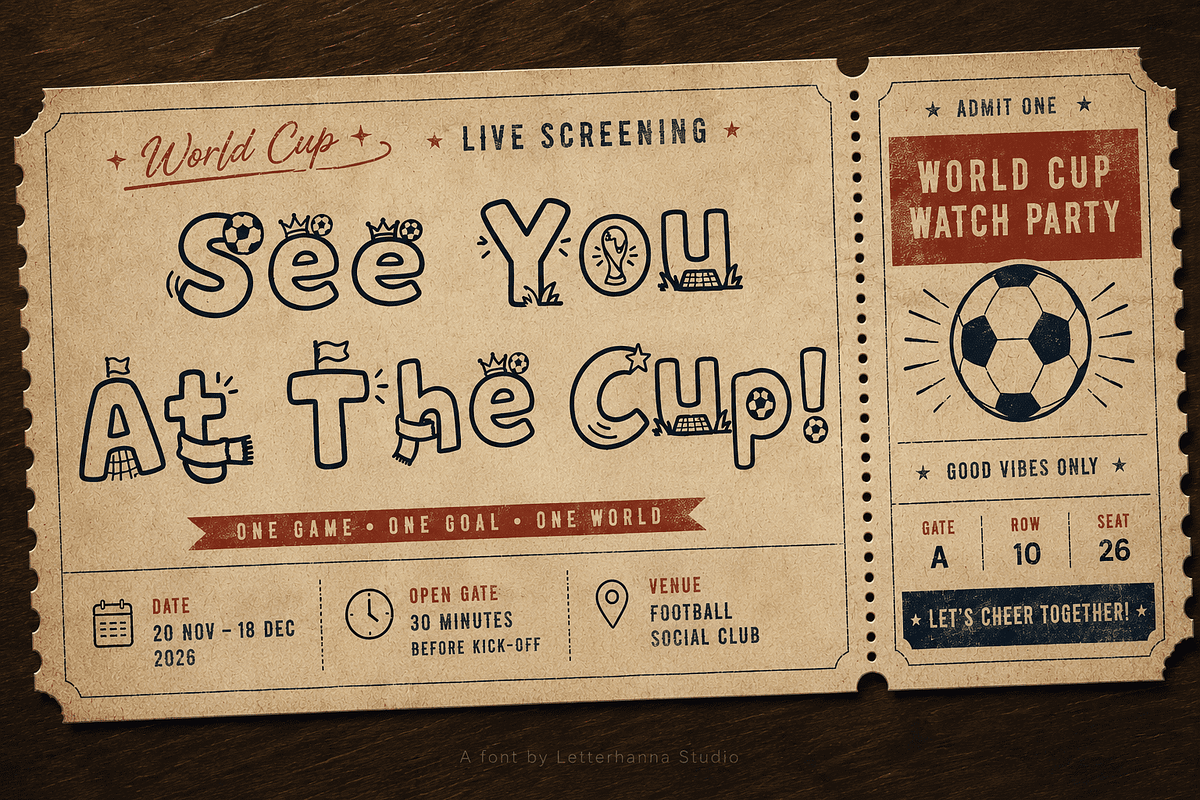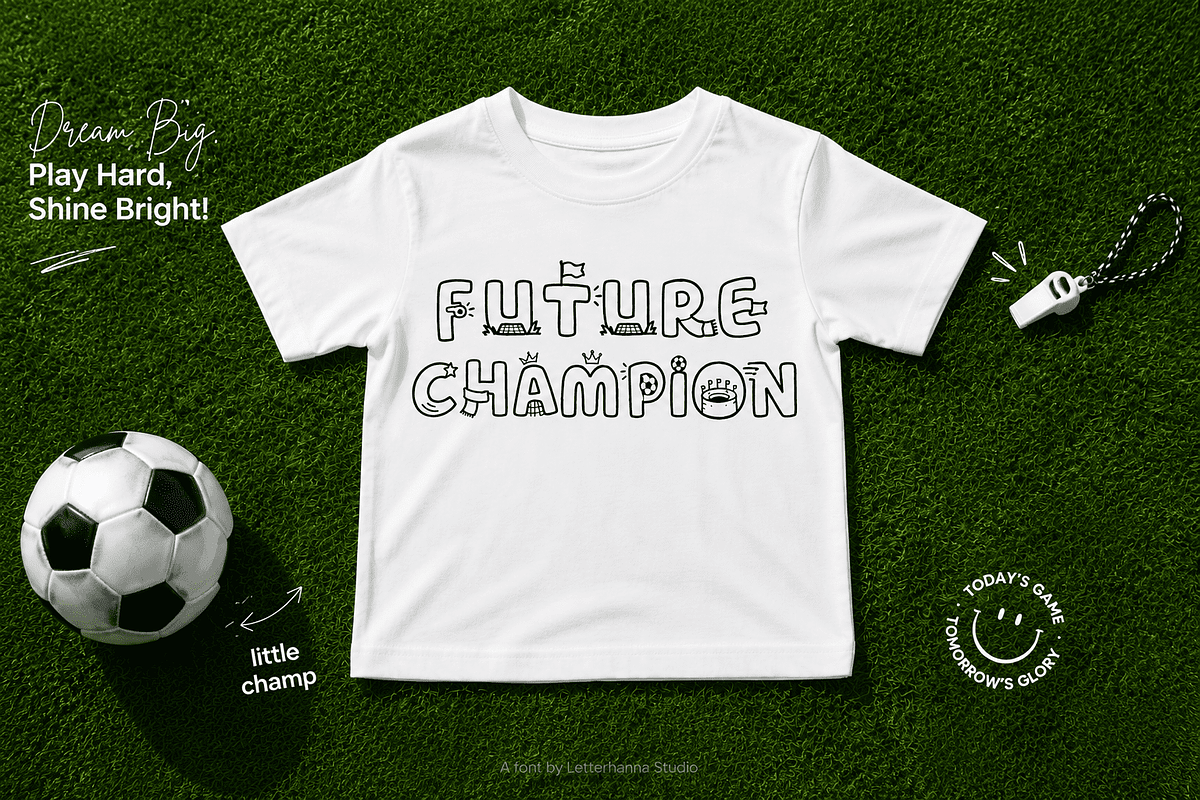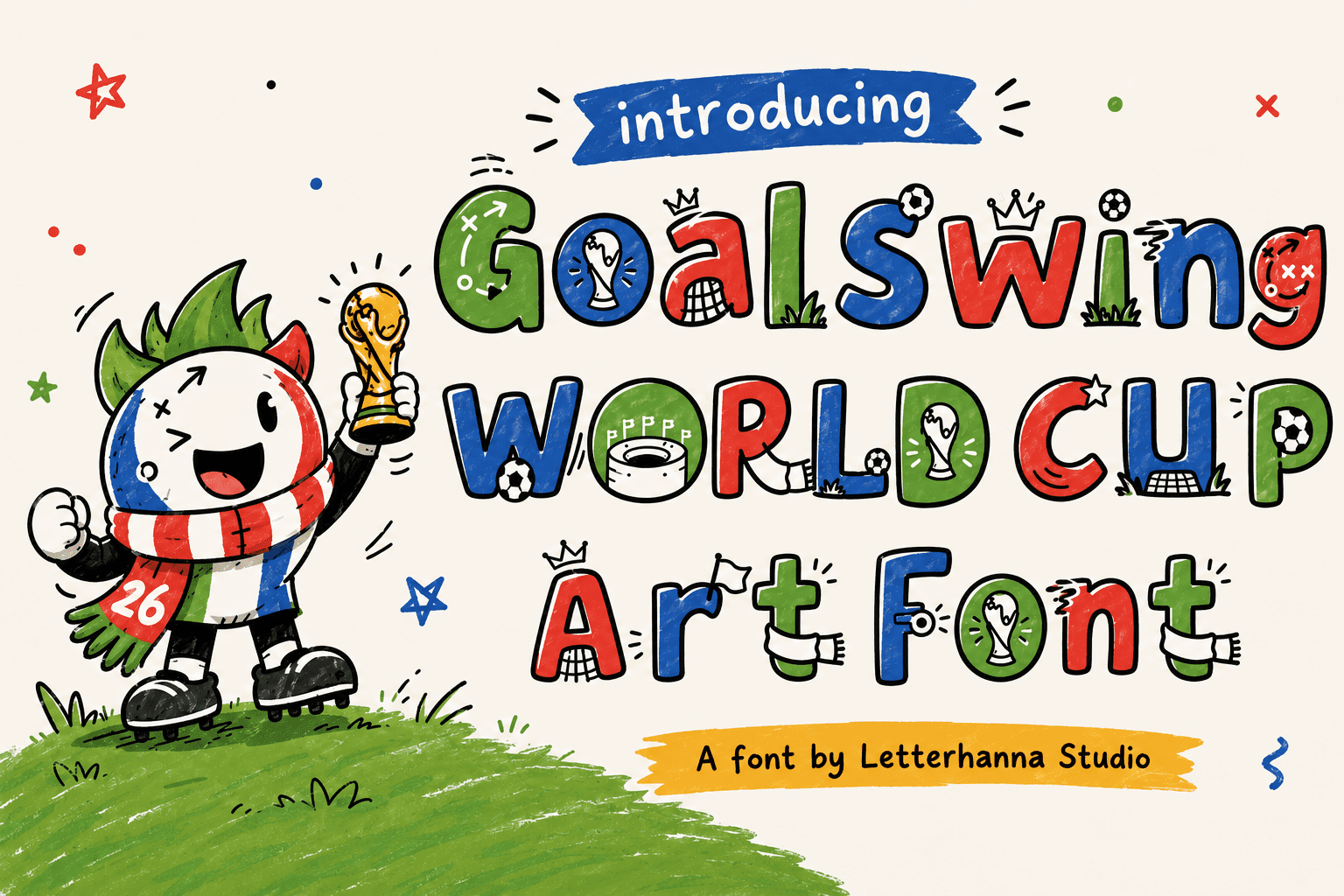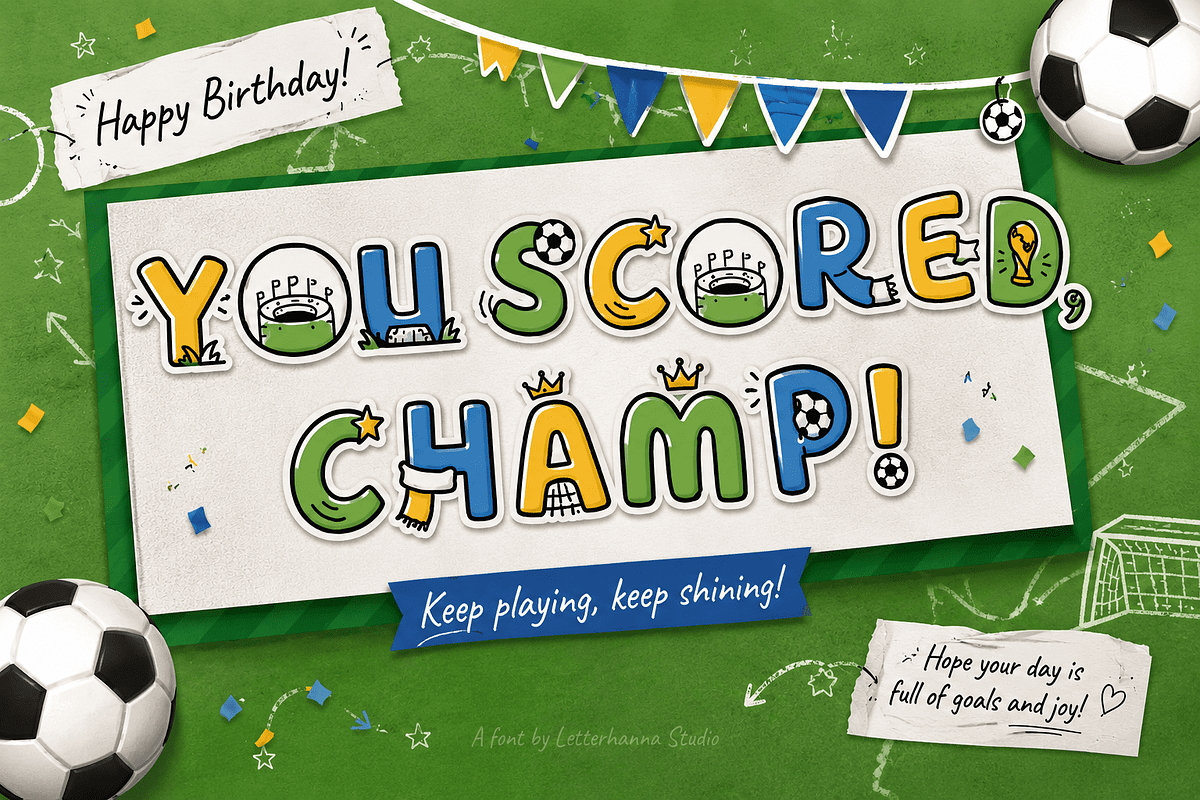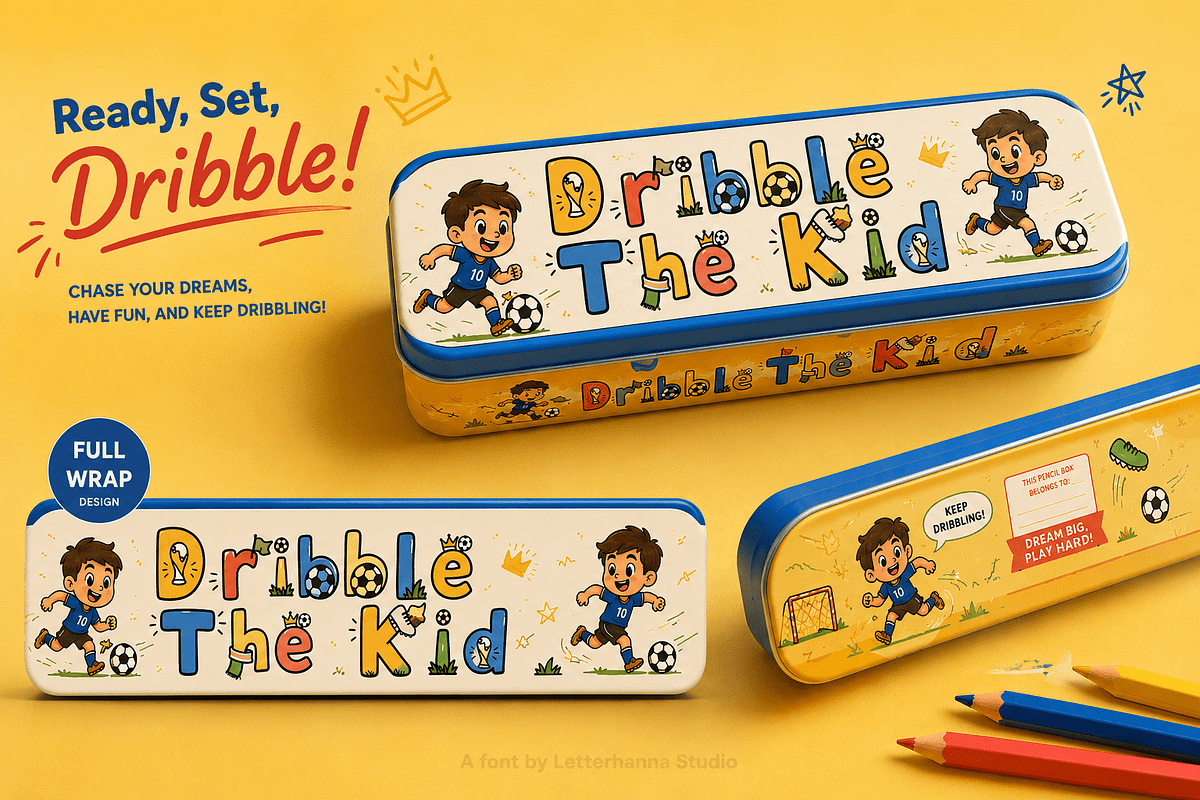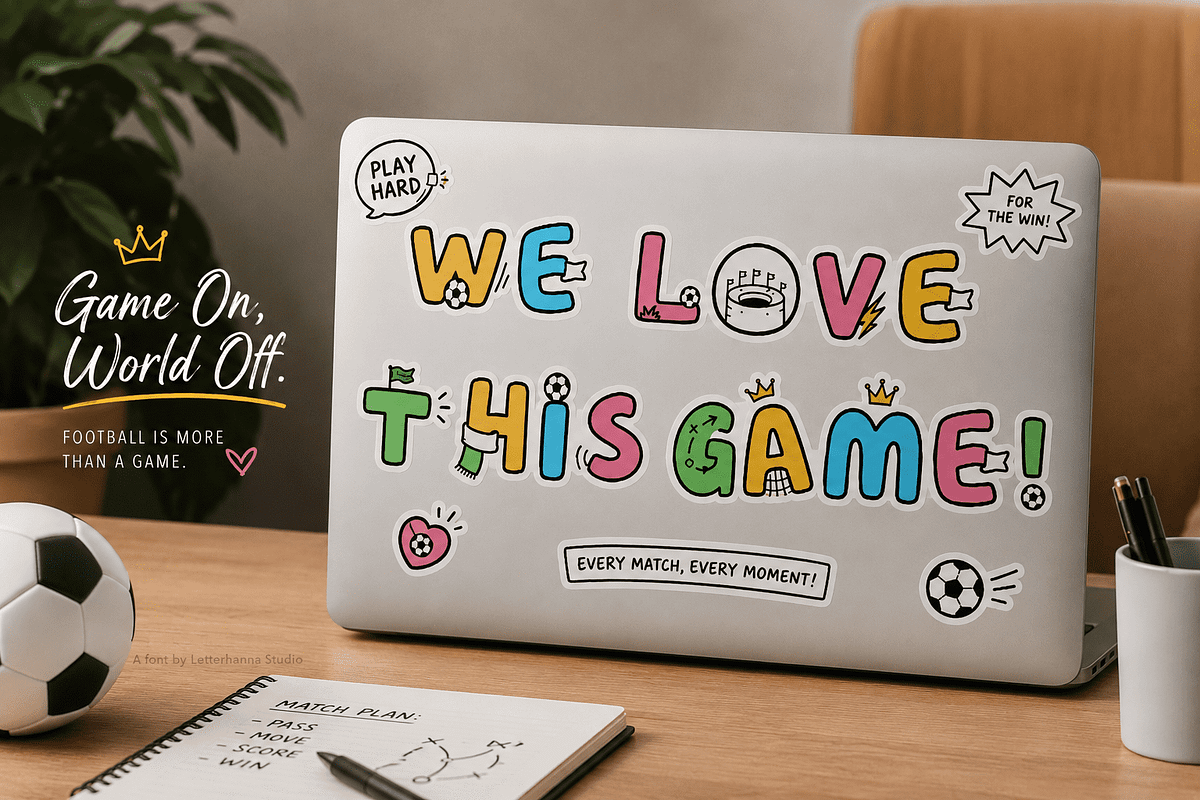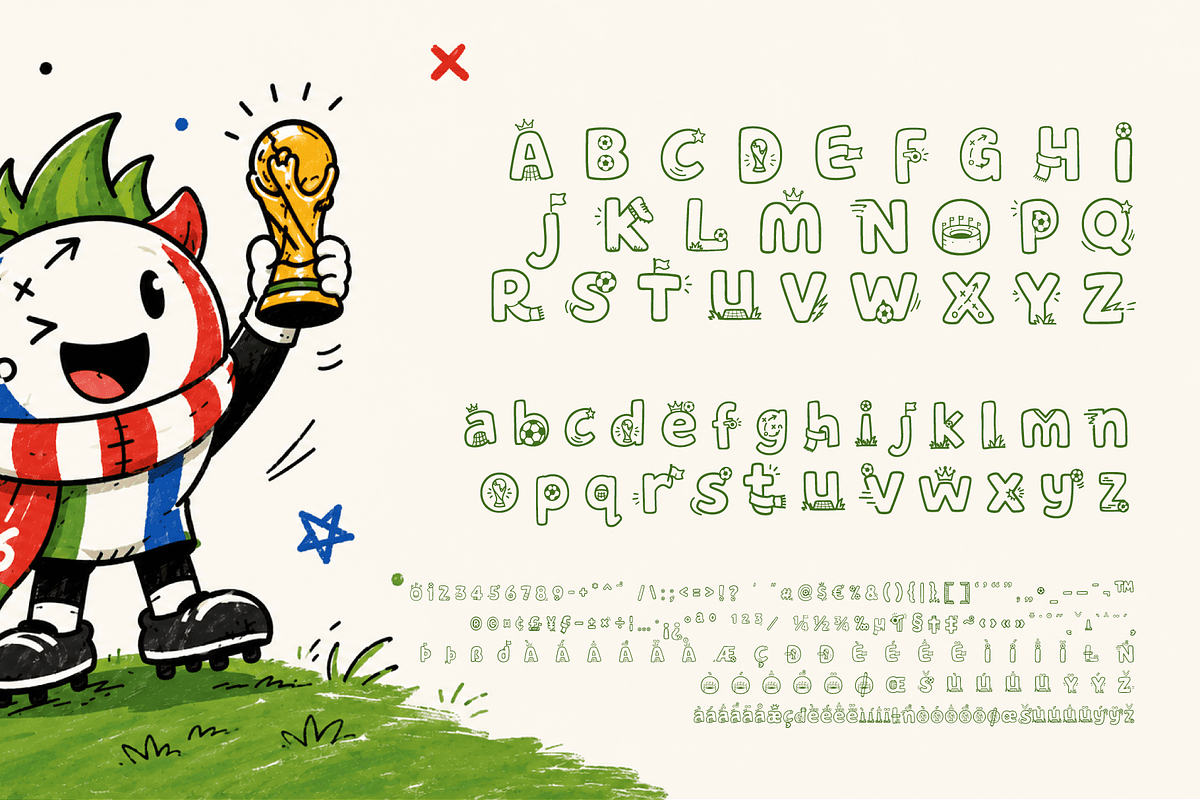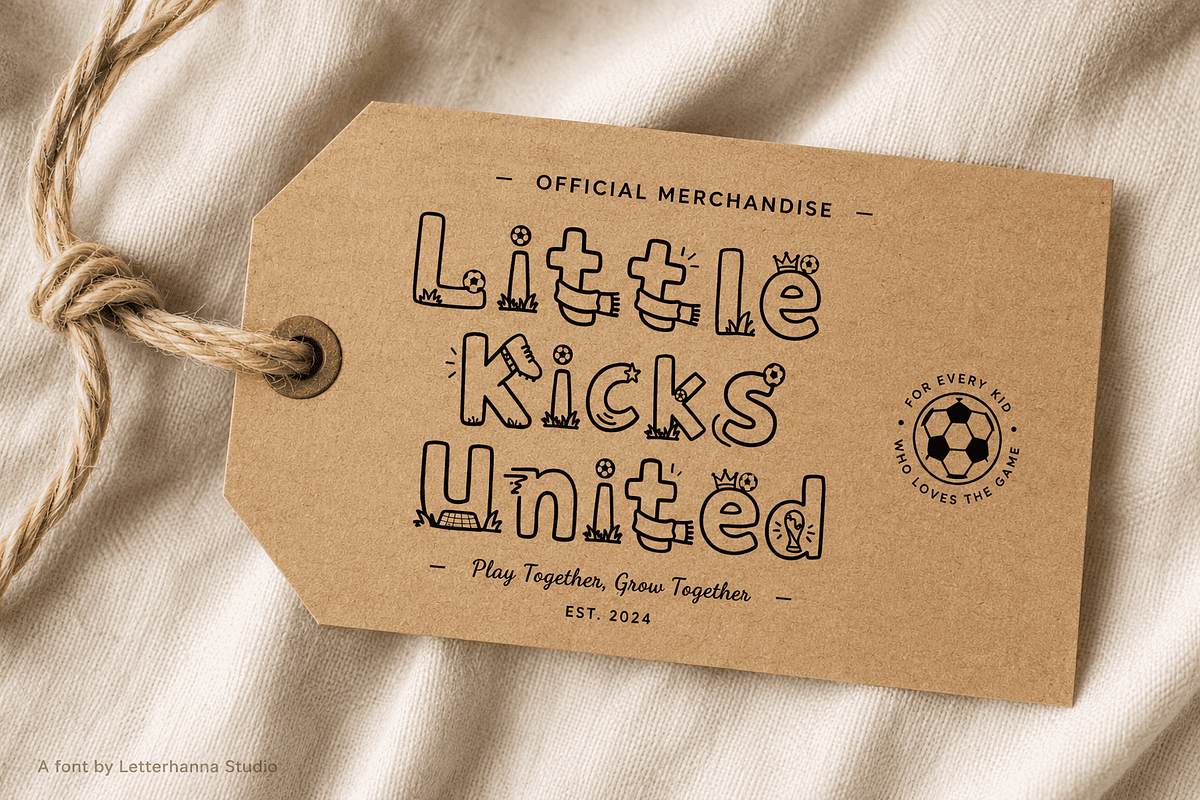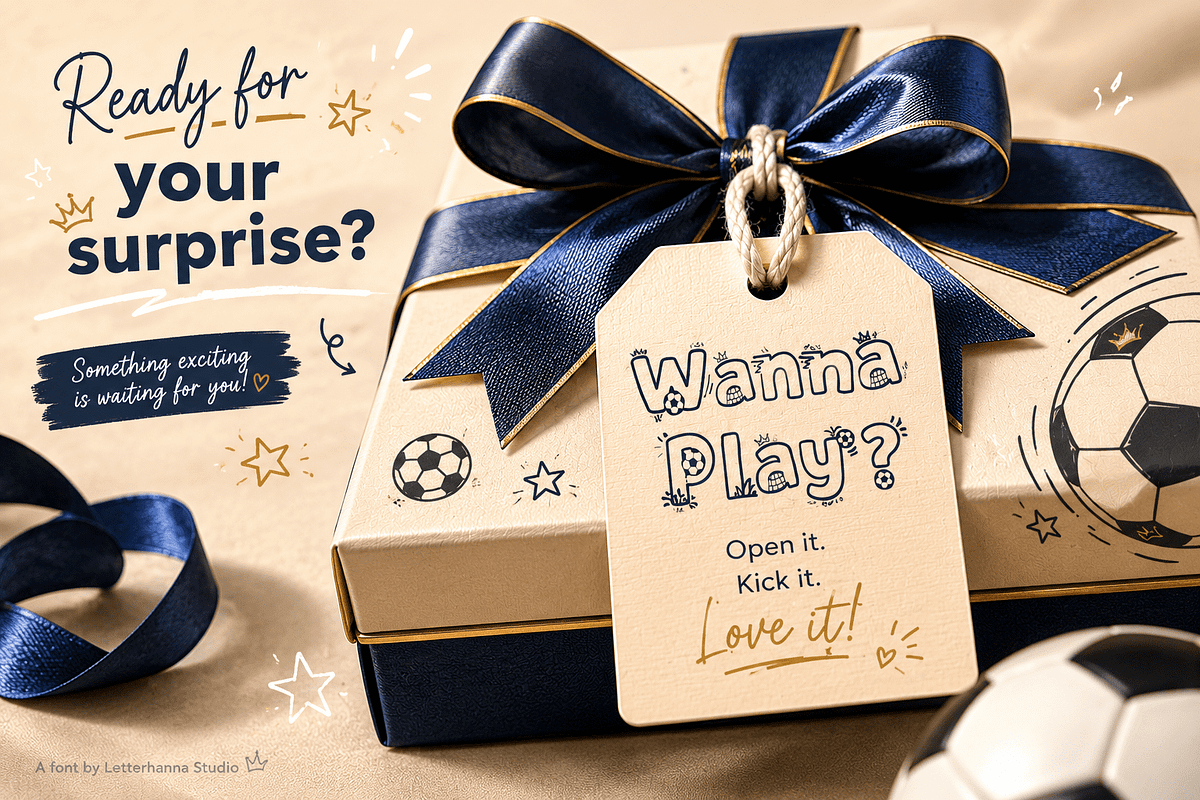
Goalswing | Soccer World Cup Font
The crowd roars. The ball curves through the air. And somewhere between the whistle and the net, magic happens.
Goalswing is a display font that captures exactly that — the joy, the chaos, the celebration of football. Designed to honor the spirit of the beautiful game and the grandeur of the 2026 World Cup, every letterform in Goalswing tells a story of the pitch.
At first glance, you'll notice the playful rounded shapes — soft, bubbly, with just enough weight to feel bold without being aggressive. The strokes have a hand-drawn quality, like chalk on a training board or marker on a fan's sign. But look closer, and the magic reveals itself: tucked inside and around the letters are tiny football icons — a soccer ball, a trophy, a goal net, a flagpole — scattered like stadium confetti. The result is a typeface that doesn't just say "football." It breathes it.
The overall vibe is festive, youthful, and unmistakably celebratory. Think matchday posters, kids' jerseys, tournament flyers, and World Cup merch. Goalswing carries the energy of a last-minute winner and the warmth of a victory lap — all in a single headline.
Whether you're designing for a local club, a global brand campaign, or crafting content around the biggest sporting event on the planet, Goalswing gives your words the same power as a perfectly struck free kick.
This font was made for the fans. For the designers. For everyone who believes that sport, at its best, is also art.